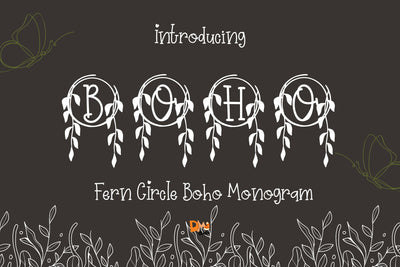
Fern Circle Boho Monogram
Fern Circle Boho Monogram – Nature-Inspired Circular Serif Font
Fern Circle Boho Monogram is a handcrafted monogram font featuring elegant circular letterforms wrapped in delicate fern accents. With a balance of rustic charm and refined structure, this font is perfect for adding a botanical and boho vibe to your personalized projects, from wedding decor to Cricut crafts and lifestyle branding.
Circular Monogram Design: Each letter is enclosed in a rounded frame for a clean, centered composition.
Fern Botanical Accents: Subtle hand-drawn fern illustrations give a gentle, organic feel.
Elegant Serif Base: Classic serif lettering brings a timeless and stylish touch.
Ideal For: Wedding invitations, boho logos, Cricut name crafts, custom gifts, stationery, and nature-themed branding.